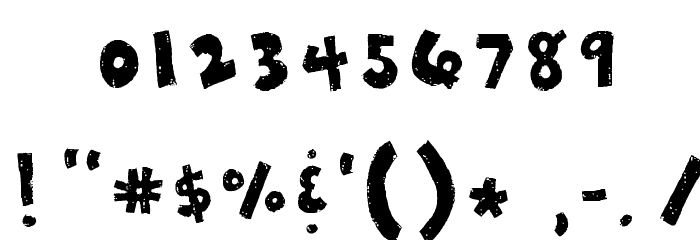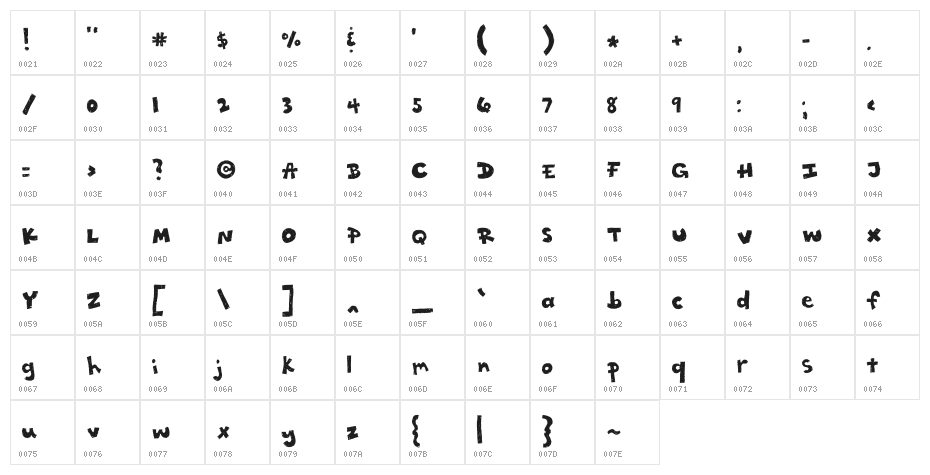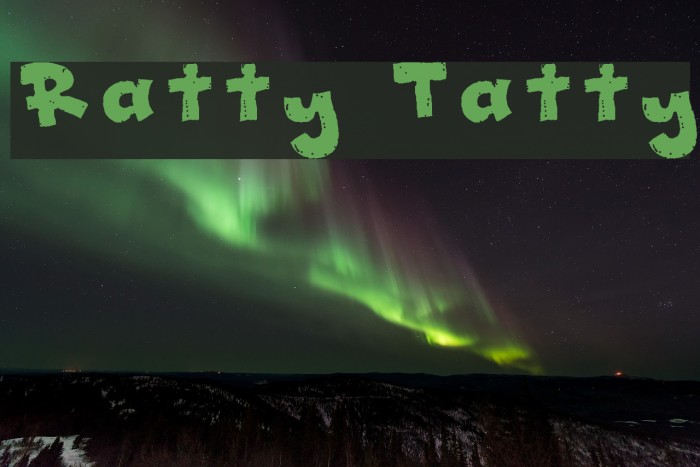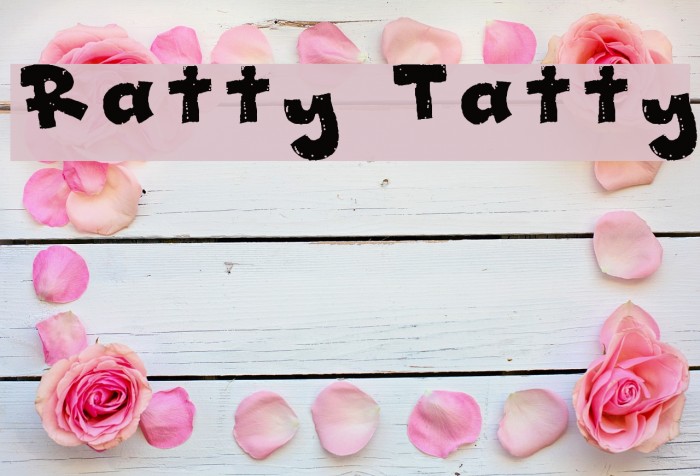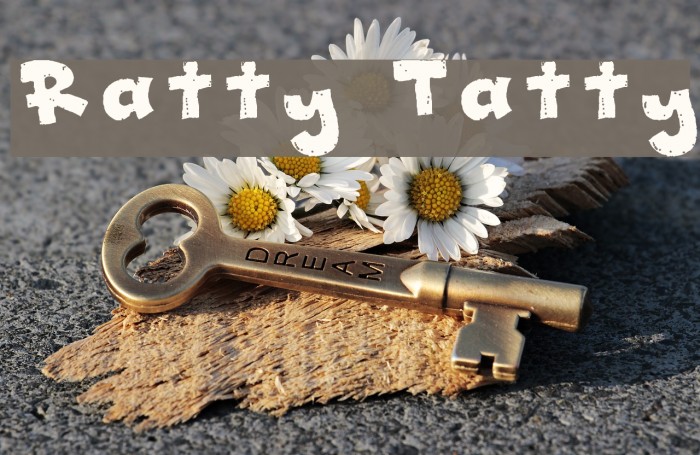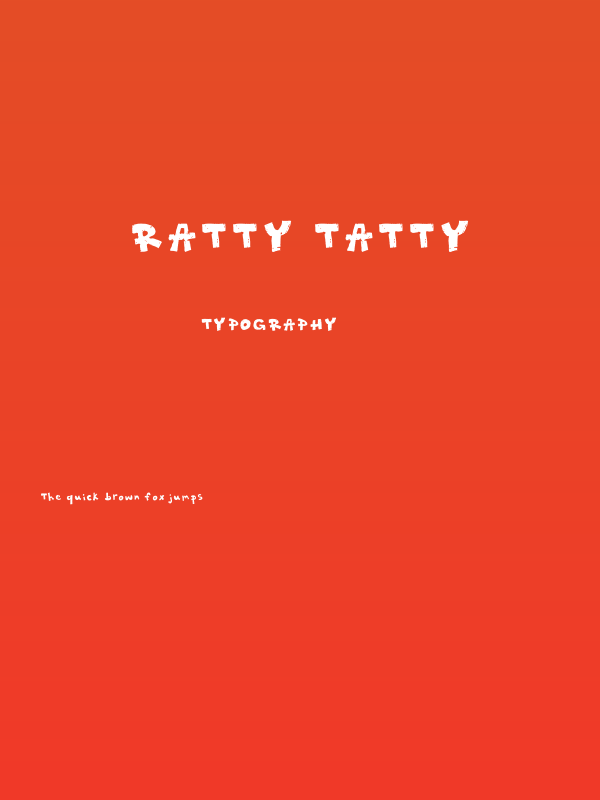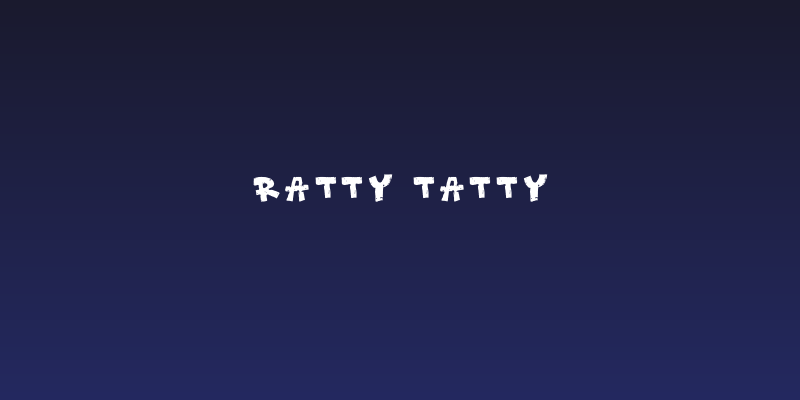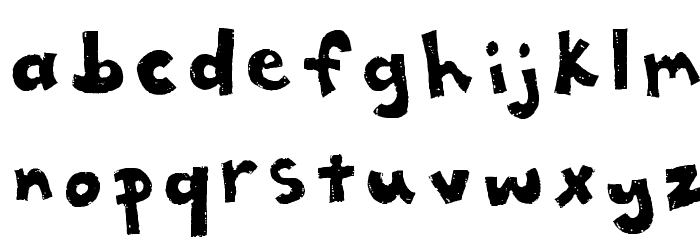
Ratty Tatty Font
Ratty Tatty Description
This font features a playful and rough aesthetic, characterized by its uneven and slightly distorted letterforms. The strokes are bold and irregular, giving it a hand-drawn, whimsical appearance. The texture is reminiscent of a brush or marker, with some letters appearing slightly tilted or off-balance, adding to its charm. The uppercase and lowercase letters maintain a consistent style, while the numbers and special characters follow suit with the same quirky, textured look. This font exudes a sense of fun and creativity, making it ideal for projects that require a casual and artistic touch.
Overall StyleWhimsical, Artistic
Proposed ProjectsIdeal for children's book covers, playful posters, creative branding, and artistic invitations.